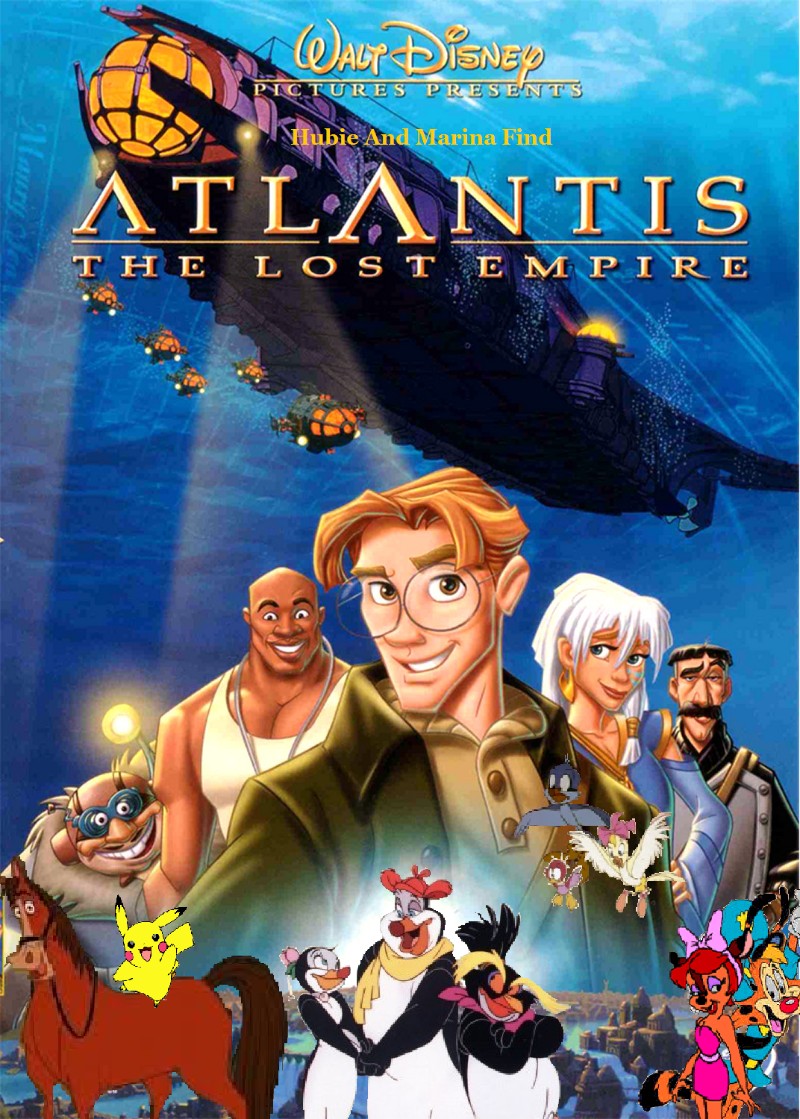
Atlantis The Lost Empire Font
AdventureAtlantis: The Lost Empire is a 2001 animated adventure film about a young adventurer who leads a team to the lost city of Atlantis in search of the power to save their world.
The Atlantis: The Lost Empire title uses an old-style serif typeface called Palatino Medium. Hermann Zapf designed Palatino inspired by his own graceful calligraphy and the humanistic serif designs of the Renaissance.